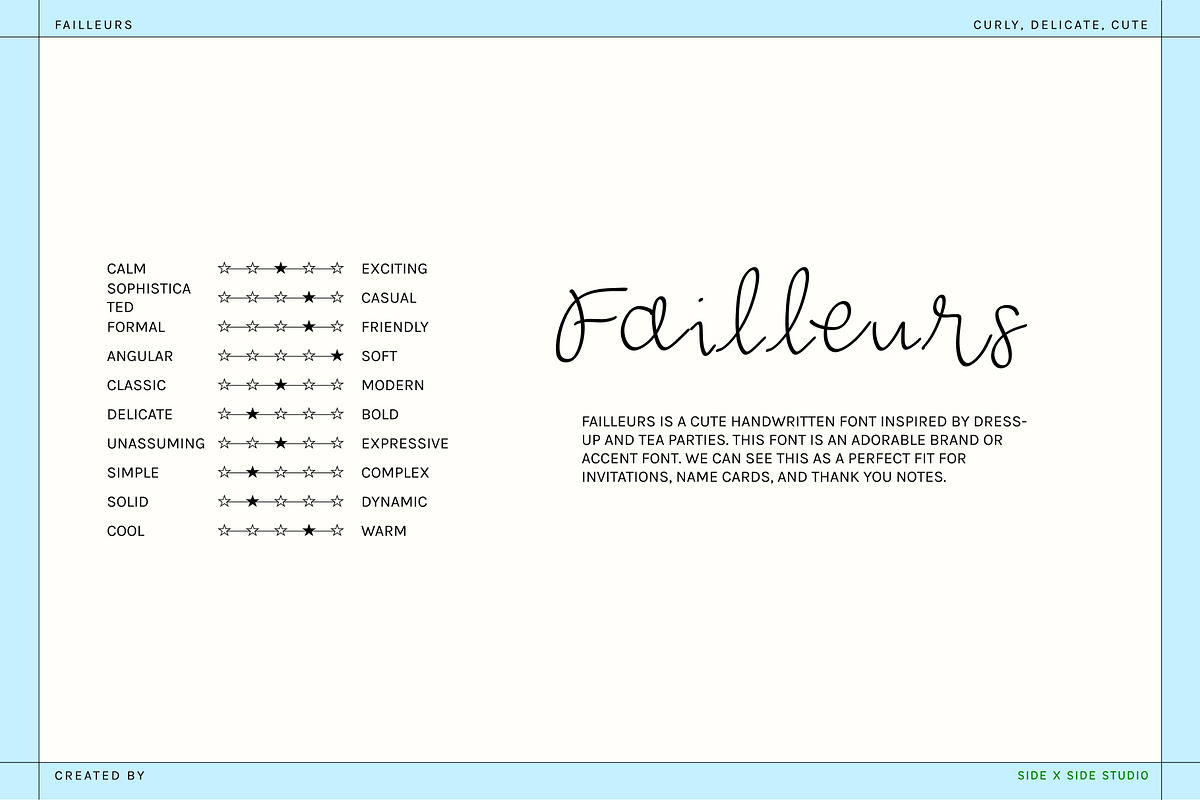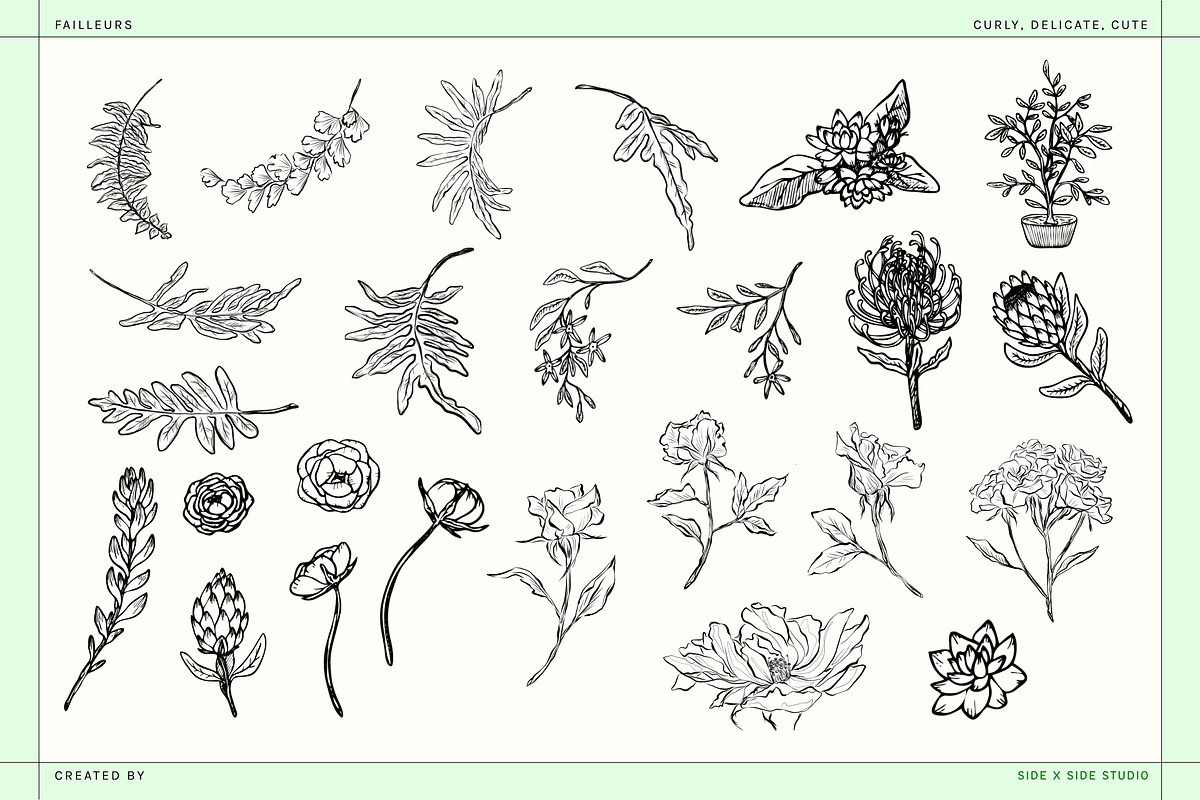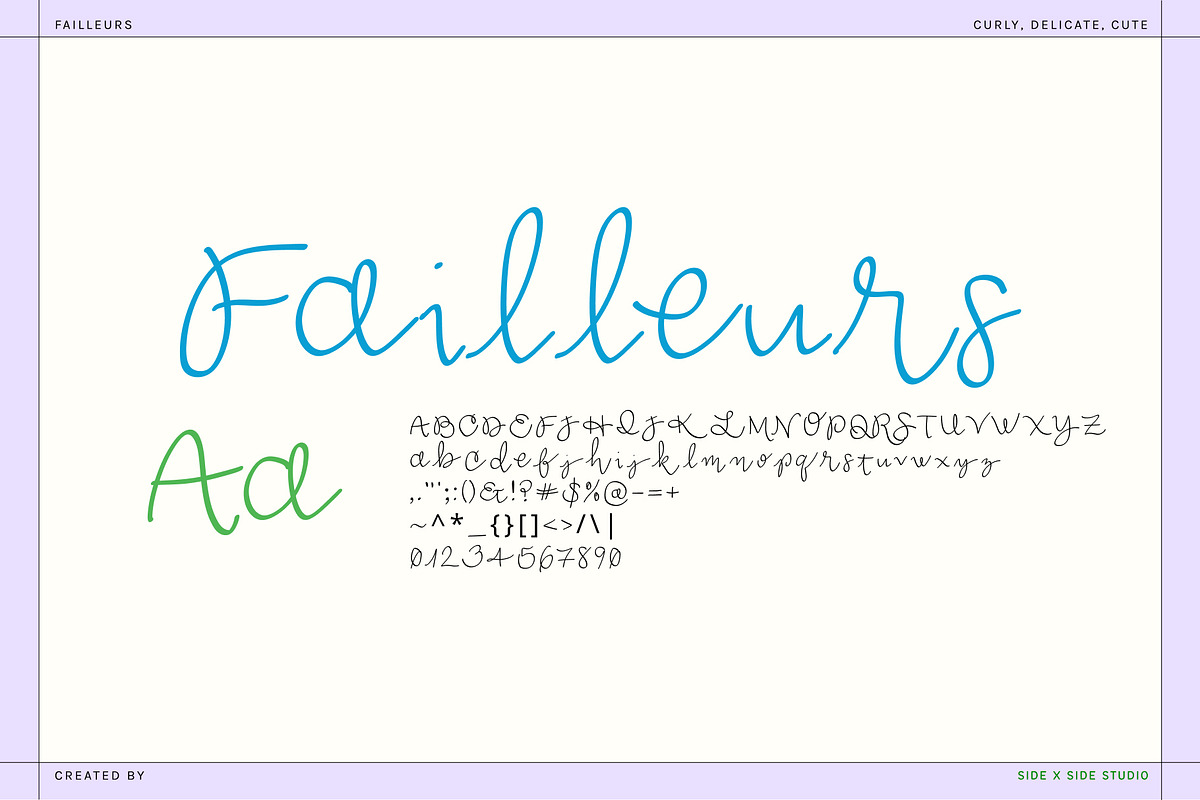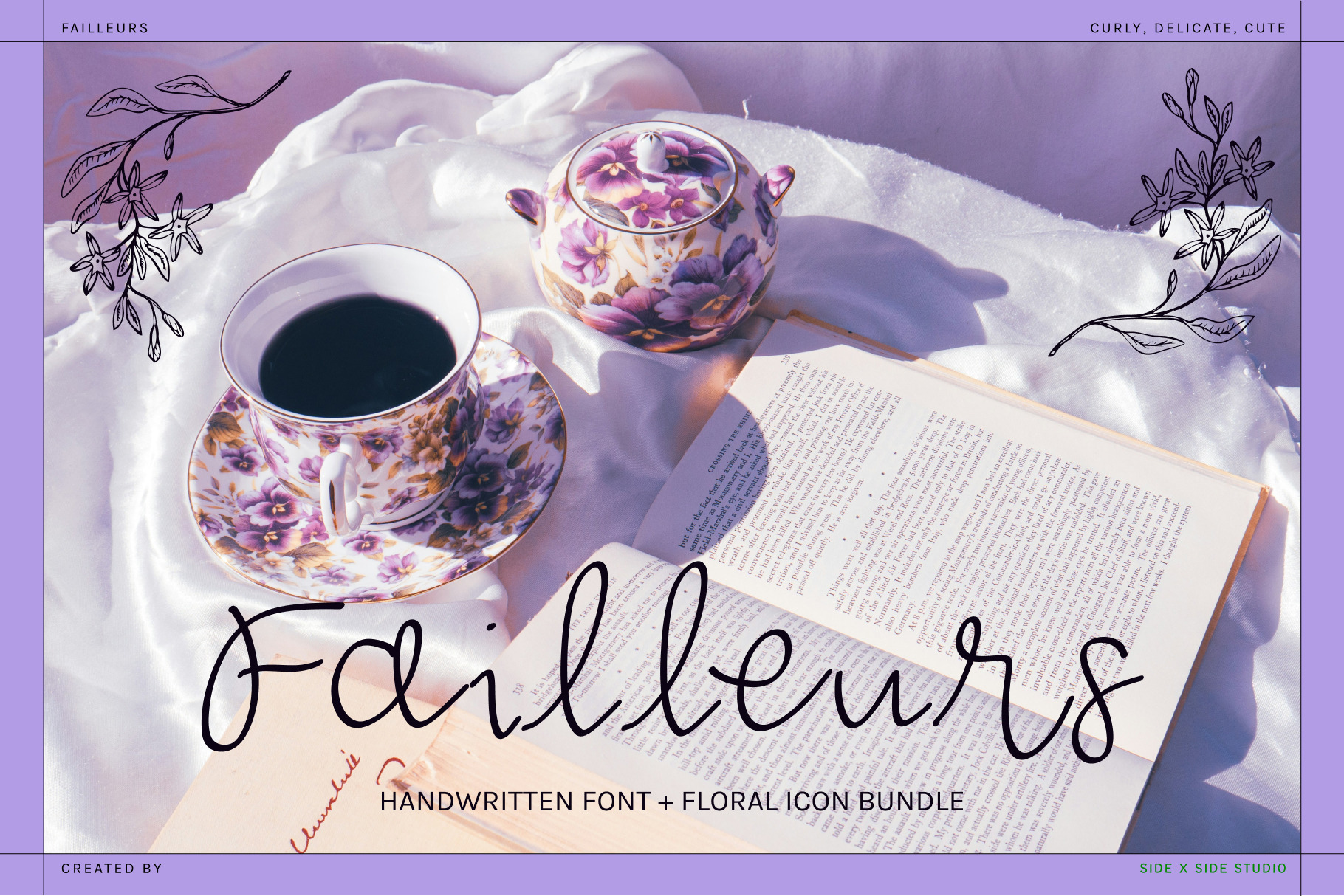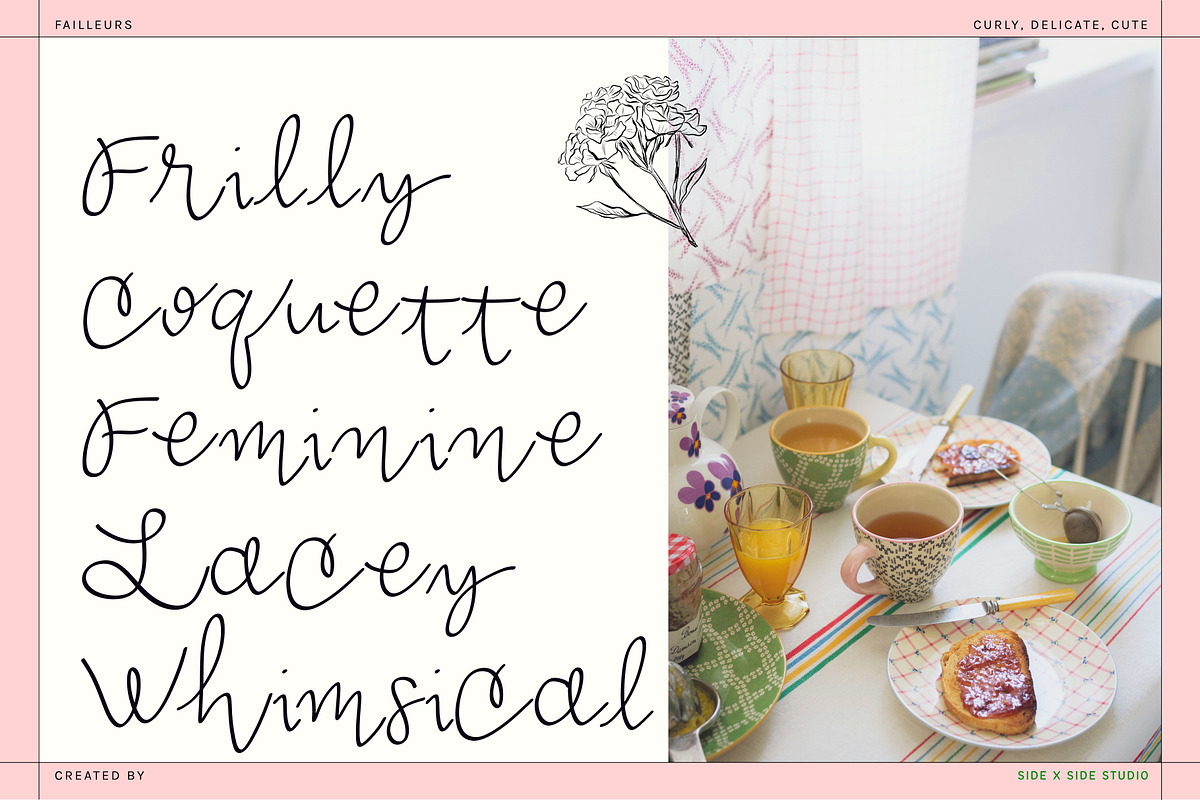
Failleurs Handwritten Font + Icons
Bring some whimsy to your next project with Failleurs – a delicate and feminine handwritten font. Failleurs was inspired by dress-up and tea parties. This font is an adorable brand or accent font. We can see this as a perfect fit for invitations, name cards, thank-you notes and so much more! We also included 25 beautiful hand-illustrated floral icons that we think pair perfectly with this font.